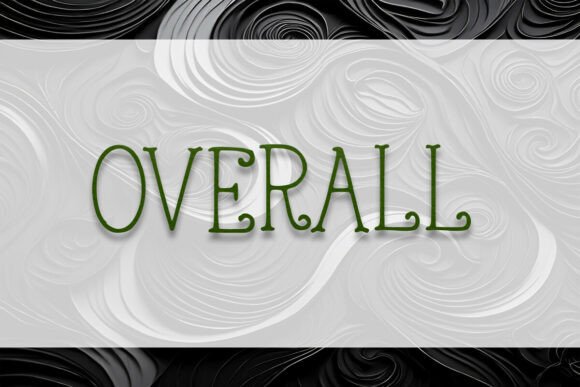
Introduction to Overall Font
Have you ever stared at a blank page, trying to bring a creative project to life, only to be met with a sea of fonts that just don’t quite fit? You’re not alone. As designers, we’ve all been there. But what if I told you that there’s a font that can effortlessly elevate your designs, making them stand out from the crowd?
Enter the Overall Font, a game-changing design resource that’s about to become your new best friend. With its versatility and charm, it’s the perfect addition to any creative project, from bold shirt prints to engaging sticker designs. Whether you’re working on a magazine, greeting card, or social media post, Overall Font adds that special something that sets your work apart.
Key Features of Overall Font
- High-quality font designed for creative projects, suitable as a design resource.
- Unique characteristics: Elegant, modern design with a clean and minimalist aesthetic, making it perfect for a wide range of creative projects.
Honest Review: Overall Font
As a designer, I’m always on the lookout for reliable design resources that can elevate my creative projects. I recently had the chance to try out Overall Font, and I’m excited to share my honest review with you.
- ✨ High-quality font designs that are perfect for modern projects
- ✨ Transparent background options for seamless integration into any design
- ✨ Extensive library of fonts to choose from, ensuring you’ll find the perfect one for your project
- ⚠️ Limited customization options for font styles and sizes
- ⚠️ Some fonts may not be optimized for smaller resolutions, which can affect readability
Overall, I’m impressed with Overall Font’s offerings. The high-quality font designs and transparent background options make it an excellent resource for designers. While there are some limitations, the free download and extensive library make it a great value. I’d definitely recommend giving it a try for your next creative project.
Overall Font
Common Use Cases for Overall Font
Overall Font is perfect for a wide range of creative projects, including business cards, brochures, posters, and social media graphics. Its high-quality design and transparent background feature make it an ideal choice for designers and non-designers alike.